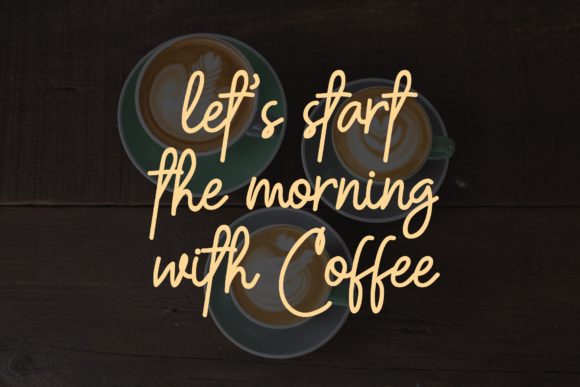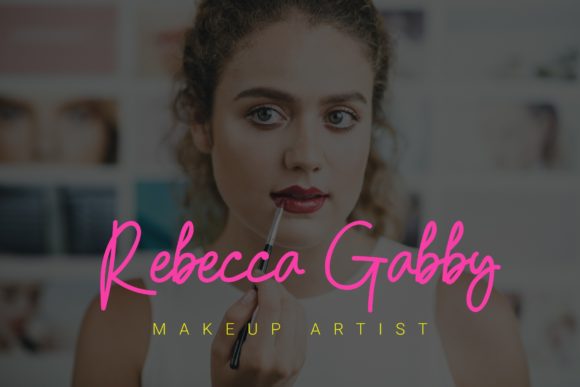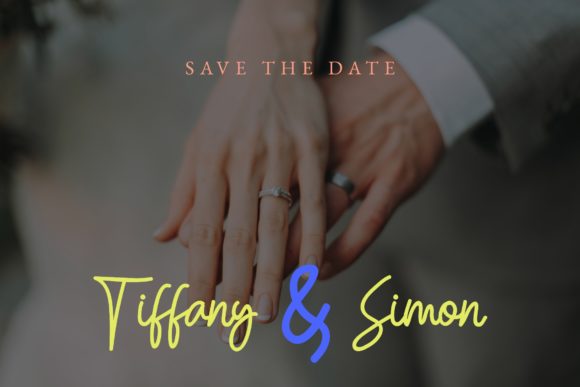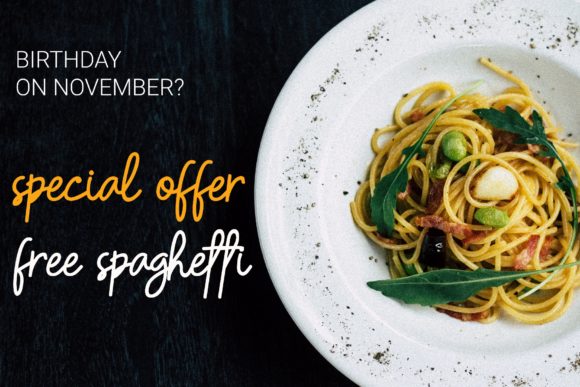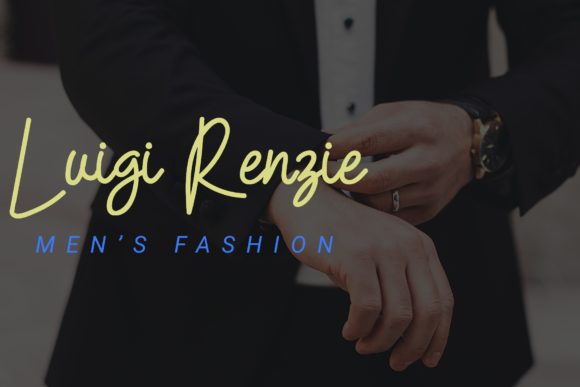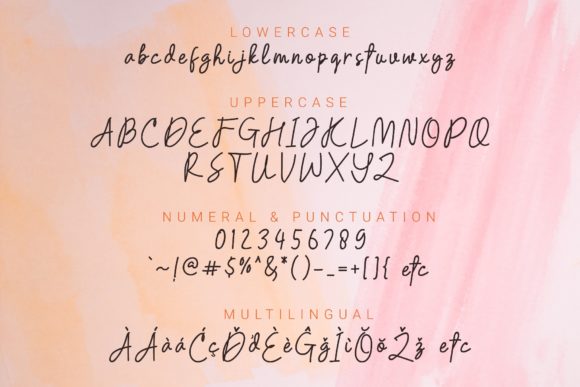
Introduction to Lafentha Font
Have you ever found yourself scrolling through social media, stumbling upon a beautifully designed project that makes you think, ‘I wish I could create something like that’? For many of us, that spark of creativity is all it takes to start a new project. As designers, we’re always on the lookout for the perfect font to bring our ideas to life, and that’s where the Lafentha Font comes in.
With its romantic and sweet, yet casual vibe, the Lafentha Font is a versatile design resource that’s perfect for a wide range of creative projects. Whether you’re working on a hobby crafting project or a professional design, this beautiful script font is sure to add a playful touch that will make your work stand out.
Key Features of Lafentha Font
• High-quality design resource ideal for creative projects, including posters, flyers, and brochures.
• Unique, modern design with a transparent background, allowing for easy layering and customization.
Honest Review: Lafentha Font
I recently came across the Lafentha Font while searching for a high-quality design resource for a creative project. I was impressed with the font’s elegant and modern feel, making it perfect for a variety of design applications.
• ✨ High-quality design that looks great on a transparent background
• ✨ Wide range of language support, making it suitable for international projects
• ✨ Beautifully crafted, with attention to detail that sets it apart from other free downloads
• ⚠️ Limited font variations, which may not be ideal for complex design projects
• ⚠️ Not suitable for small text sizes, as it may become difficult to read
Overall, I’m impressed with the Lafentha Font. It’s a great addition to any design library, and its high-quality design makes it perfect for a variety of creative projects. While it may have some limitations, I believe it’s a valuable resource for designers looking for a stylish and modern font.
Tips for Getting the Most Out of Lafentha Font
Lafentha Font is perfect for creating invitations, social media graphics, and branding materials. Its high-quality design makes it a valuable resource for designers and non-designers alike. Use Lafentha Font to add a touch of elegance to your design project.
Is the Lafentha Font suitable for use on high-resolution displays?
Yes, the Lafentha Font is designed to be scalable and legible on high-resolution displays. The font features a clear and crisp design, making it perfect for use on retina displays and other high-resolution screens. Whether you’re working on a design project for print or digital use, the Lafentha Font is a great choice.